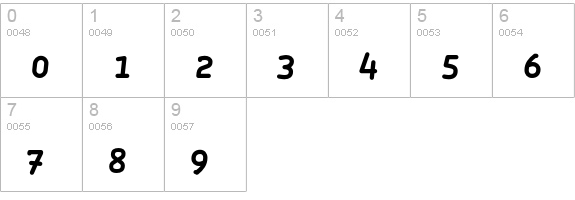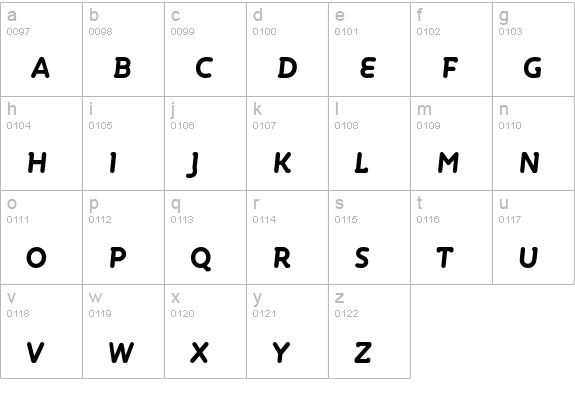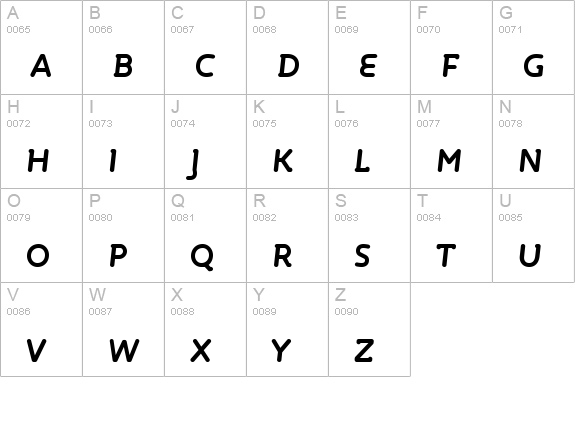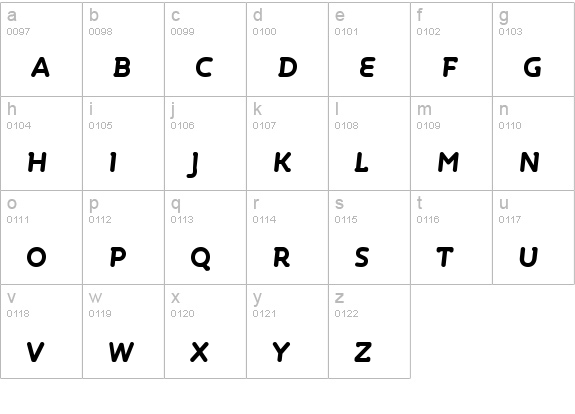
Roice-BoldItalicSC Font Details
Roice-BoldItalicSC is a dynamic and eye-catching font that exudes elegance and sophistication. Its bold and italic style commands attention and adds a touch of modern flair to any design project. This font is perfect for creating stylish headings, logos, and other creative projects that require a unique and standout look. The best part about Roice-BoldItalicSC is that it is completely free to download at FontsMarket.com. This means you can easily access this stunning font and incorporate it into your designs without any cost. Take advantage of this amazing opportunity to elevate your design work with the striking and distinctive Roice-BoldItalicSC font.